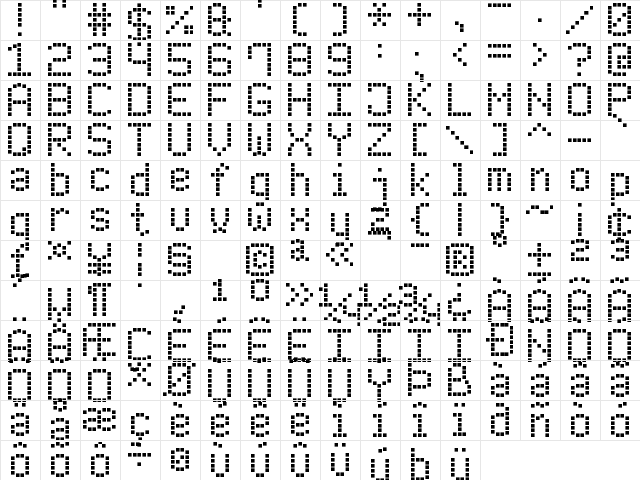
Modern LED Board-7 Regular
| Foundry | Style-7 |
| Designer | Sizenko Alexander |
Design Context for Modern LED Board-7 Typeface
Modern LED Board-7 offers clean, dependable letterforms without strong stylistic allegiance, making it a practical choice for designers who need flexibility.